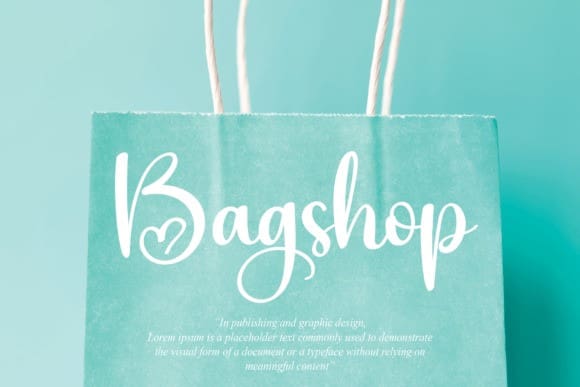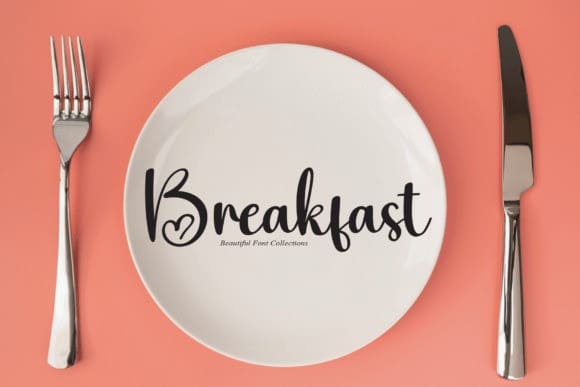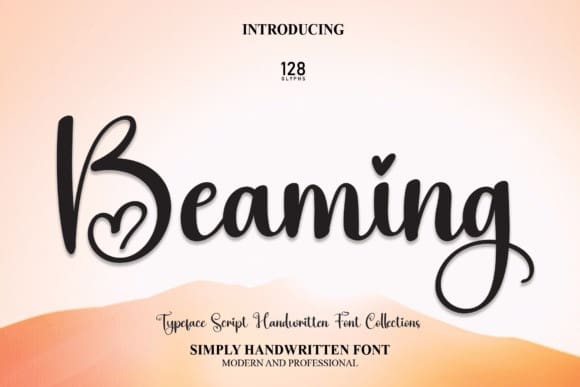
Beaming Script Font
Beaming Script Font, perfect for wall displays, wedding invitations, social media post logos, advertisements, product packaging, product designs, labels, photography, watermarks, invitations, stationery, and any project that requires a handwritten taste.